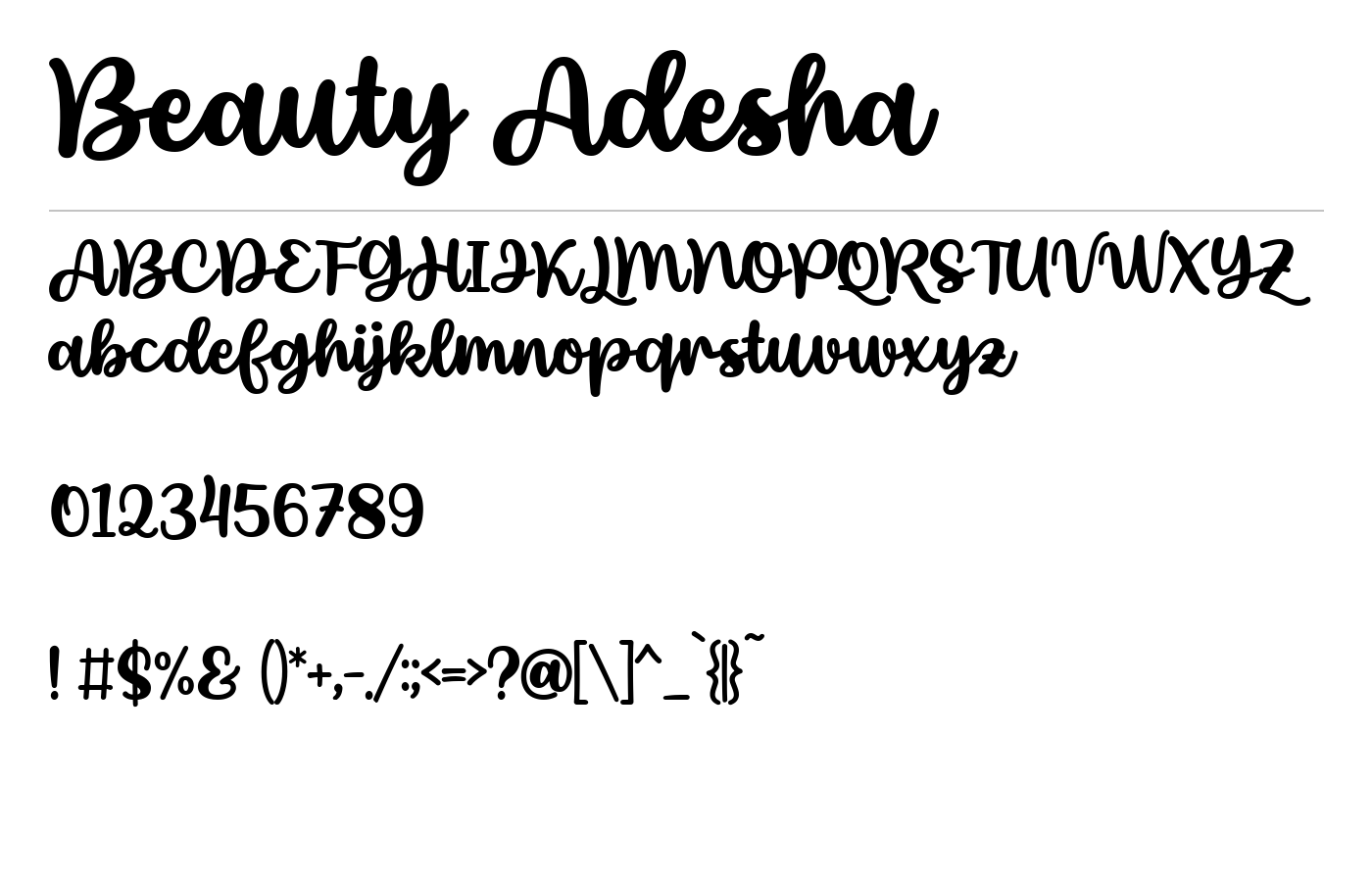
Beauty Adesha is a playful, modern script font with a friendly and casual feel, characterized by its smooth, rounded strokes and lively, connected letterforms. Its moderate weight and clean, flowing style make it ideal for creative branding, invitations, and social media graphics where a warm, approachable personality is desired. This font shines in designs that need a handwritten touch without sacrificing readability or style.
Beauty Adesha Font
About Beauty Adesha Font
| Font family | Beauty Adesha Font |
| Designer | Azzam Ridhamalik |